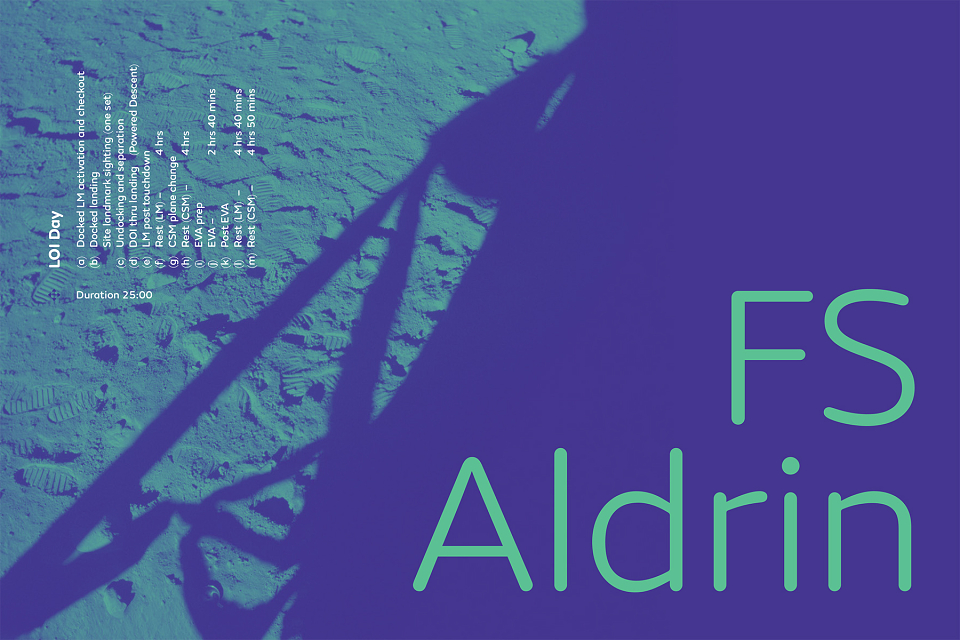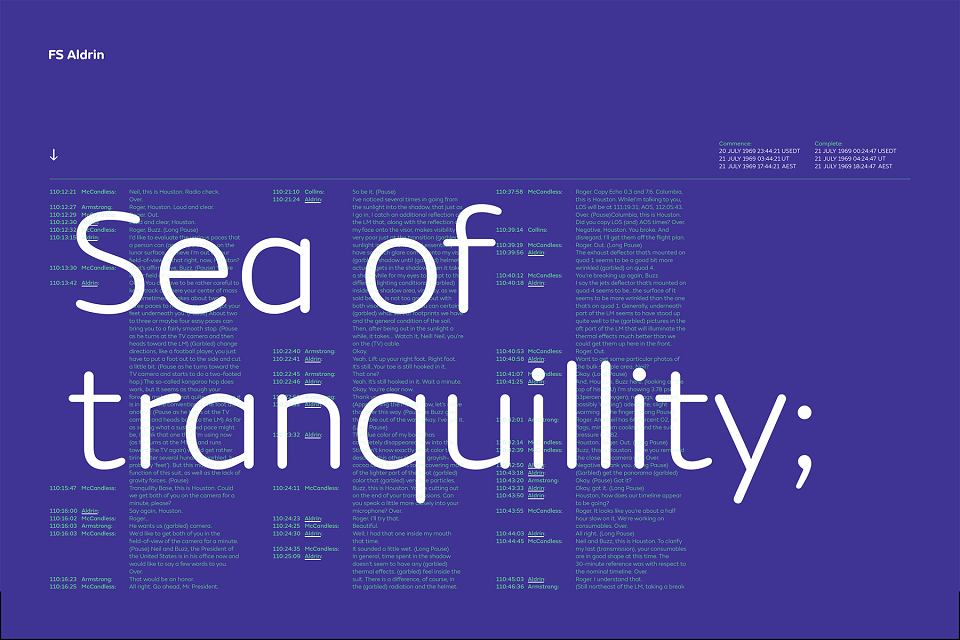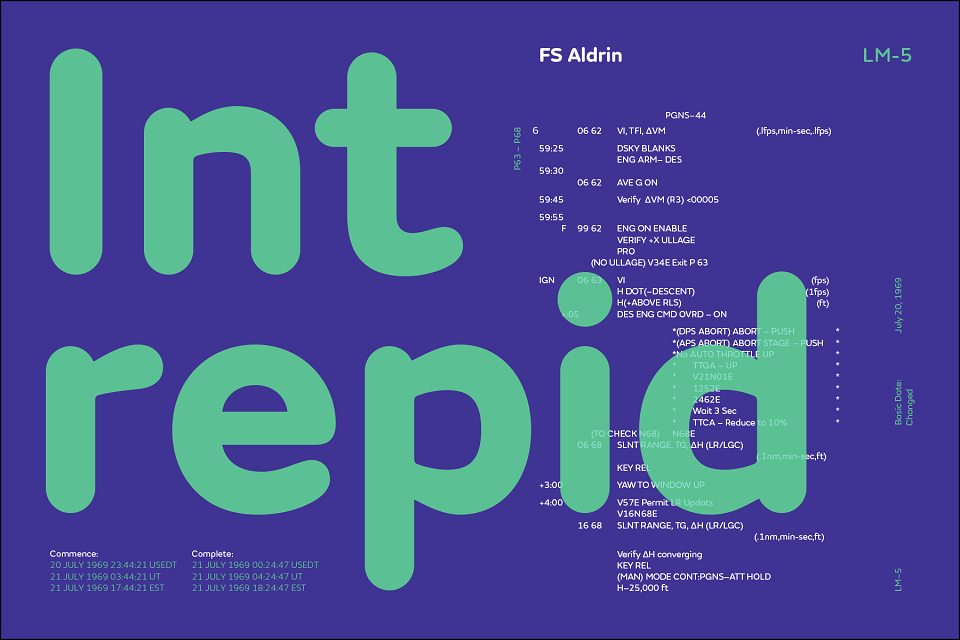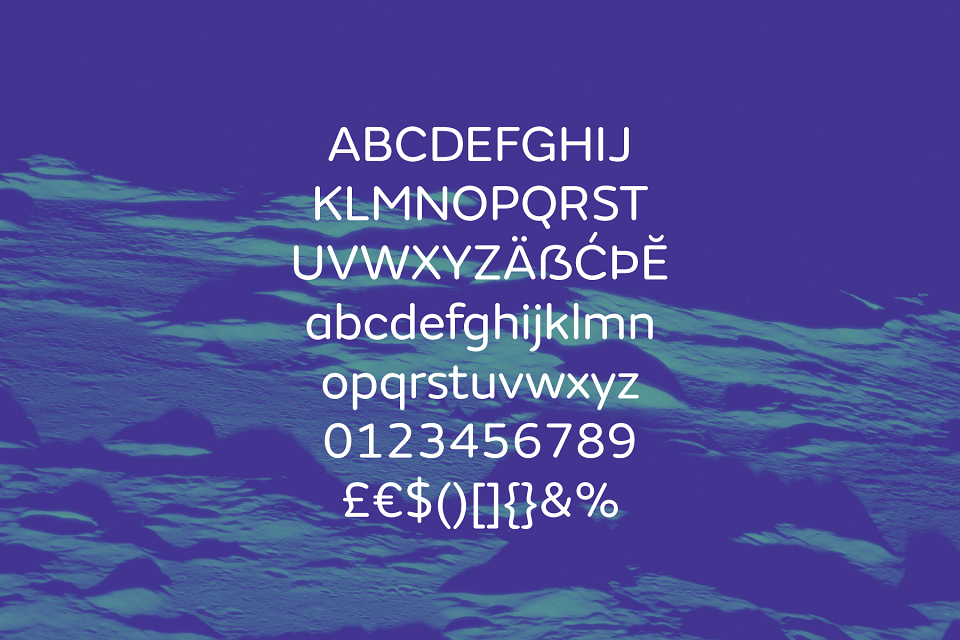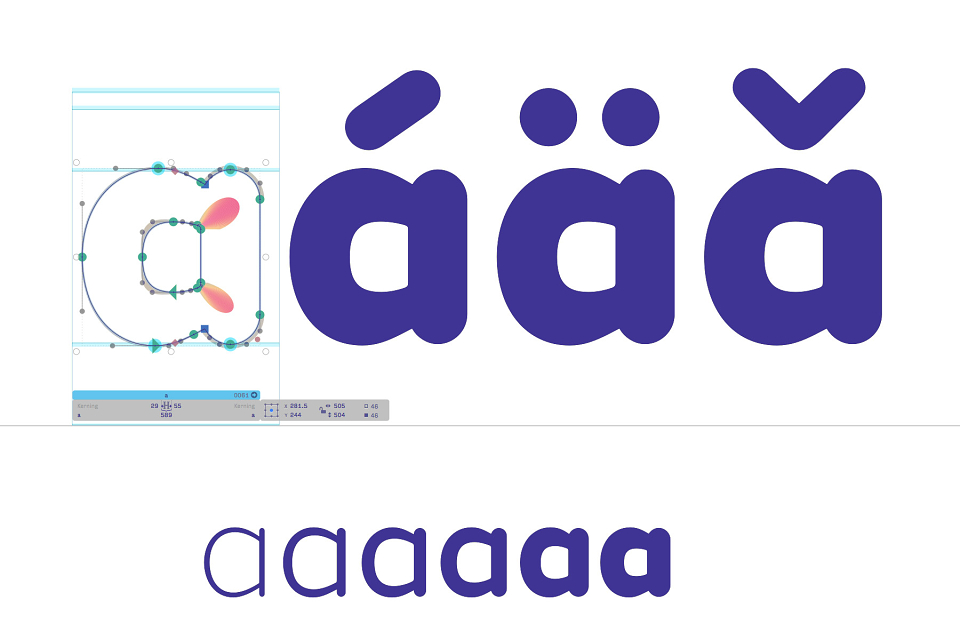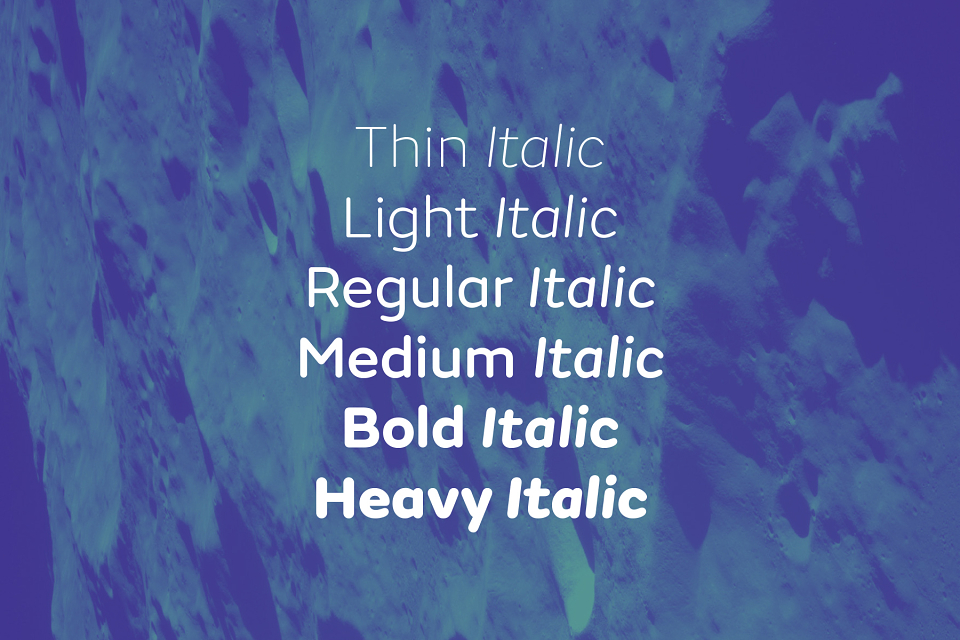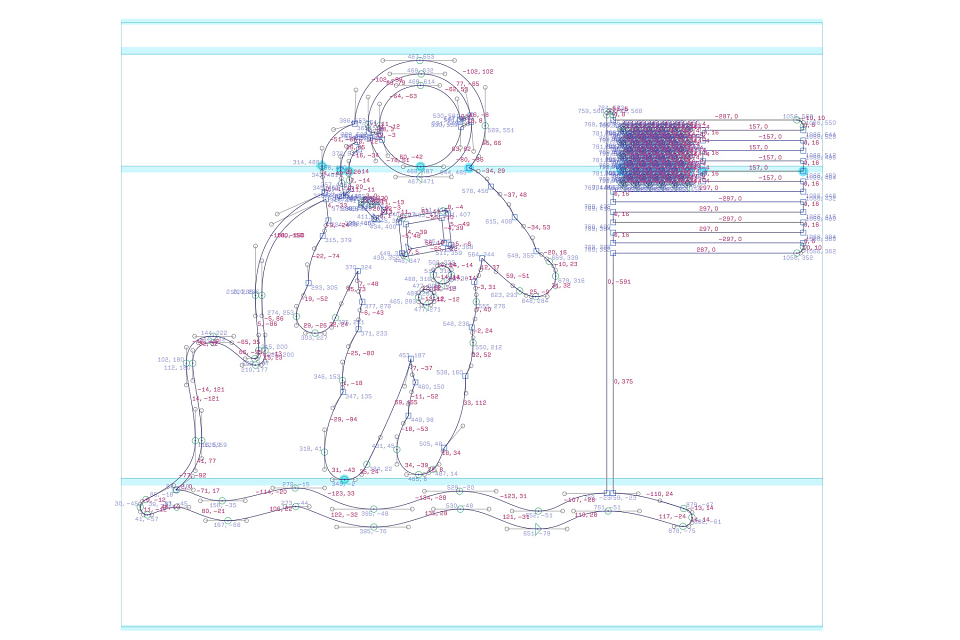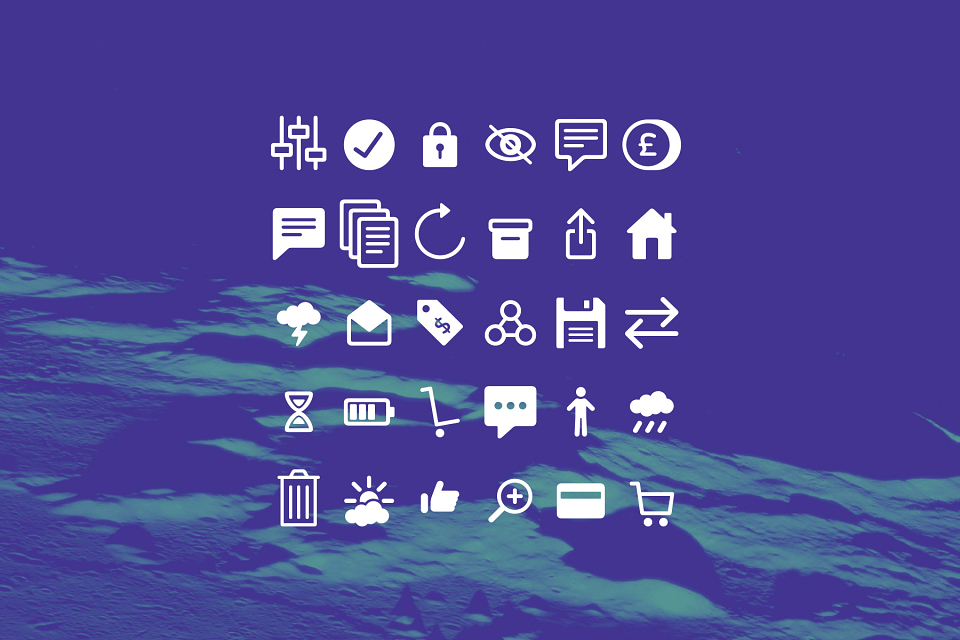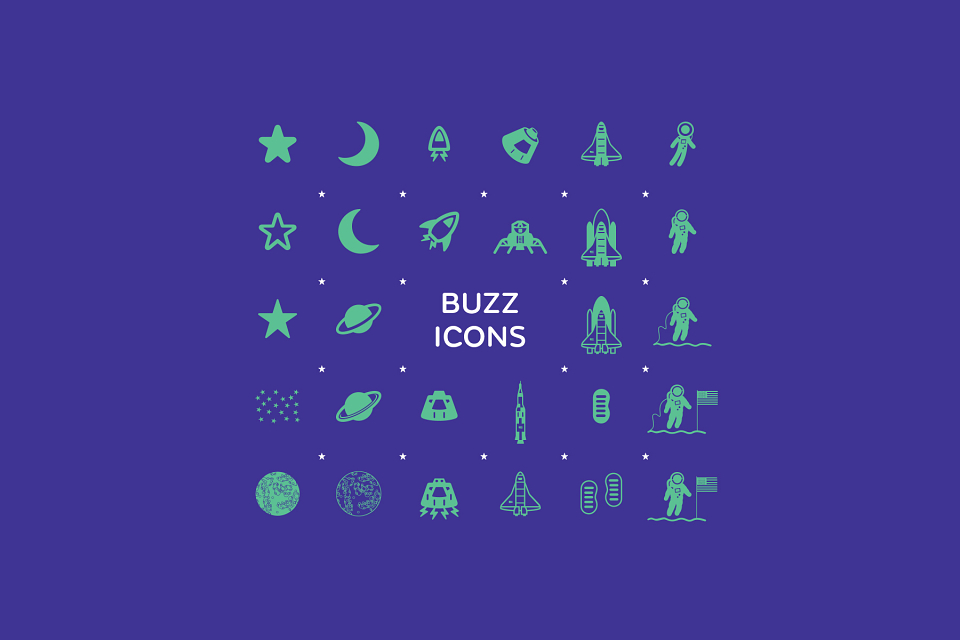
FS Aldrin is a new rounded typeface available in 6 weights plus an accompanying suite of icons. Notably, FS Aldrin has even garnered praise from Buzz Aldrin, the second man ever to walk on the Moon and who inspired the font’s name.
Space travel and exploration was a constant theme throughout FS Aldrin’s development. Phil was on a mission to break new ground and this led him to Buzz Aldrin.
Phil Garnham, Fontsmith, said: ‘The openness of the circular strokes combined with its more technical, crafted aspects made a voice in my head scream “space rocket”! As a self-confessed space geek, the personality of this font presented a great opportunity to honour one of my boyhood heroes.’
Fontsmith contacted Buzz’s management team to make sure there were no intellectual property issues that needed to be addressed. Not only was Buzz happy that the font be named after him, but he also asked if he could use FS Aldrin himself. A member of Buzz’s team said:
‘Buzz and his team love the fonts and have been using them in his presentations. We hope everyone likes them as much as Team Buzz does!’
FS Aldrin: The radiant type